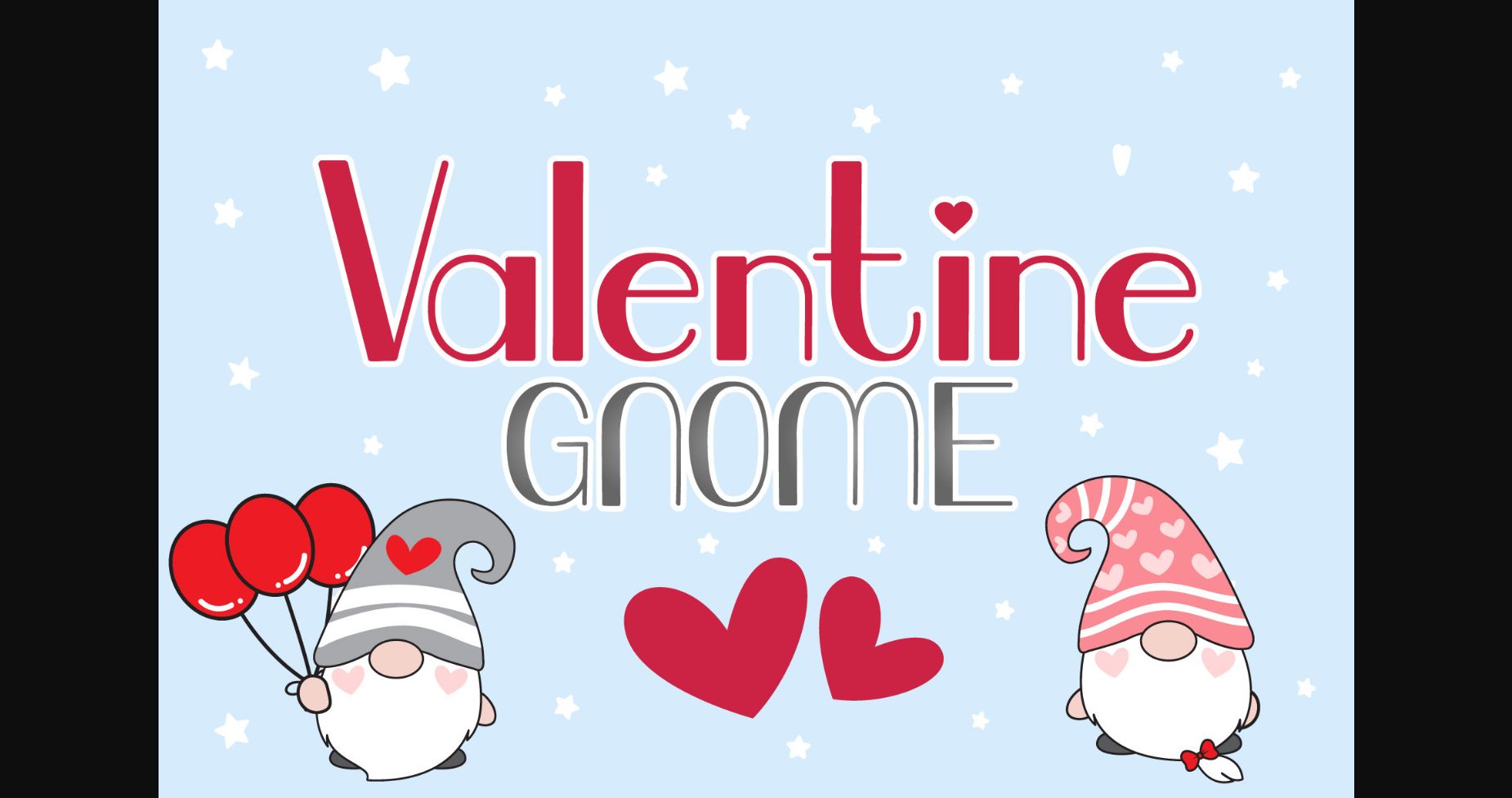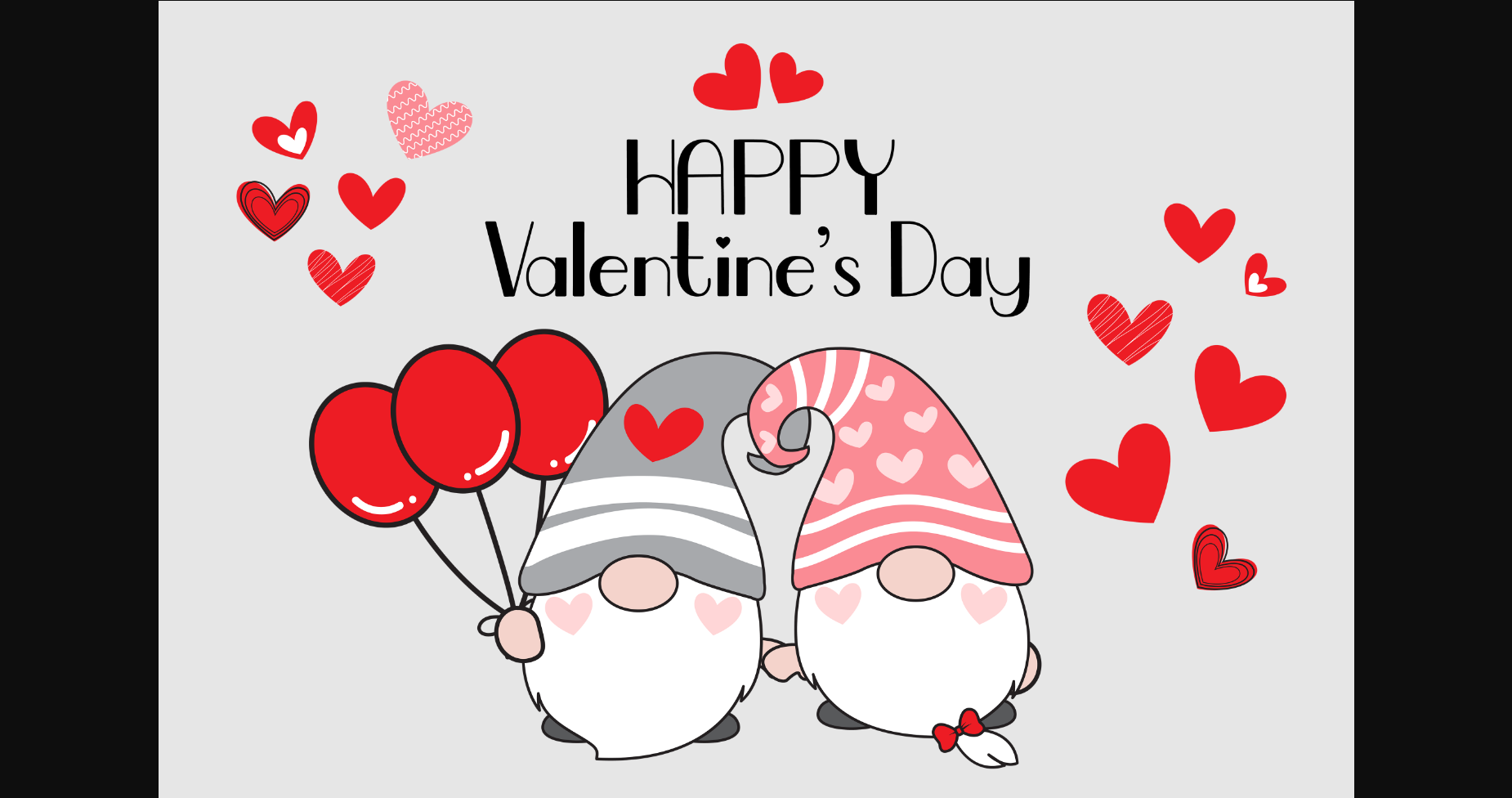
About Valentine Gnome Font
Valentine Gnome is a cute and tall sans serif font. Expertly designed to make your creation look out of this world, this font will look gorgeous on various design ideas! This font is ideal for web designs, business cards, or pretty much anything else that requires a unique touch.